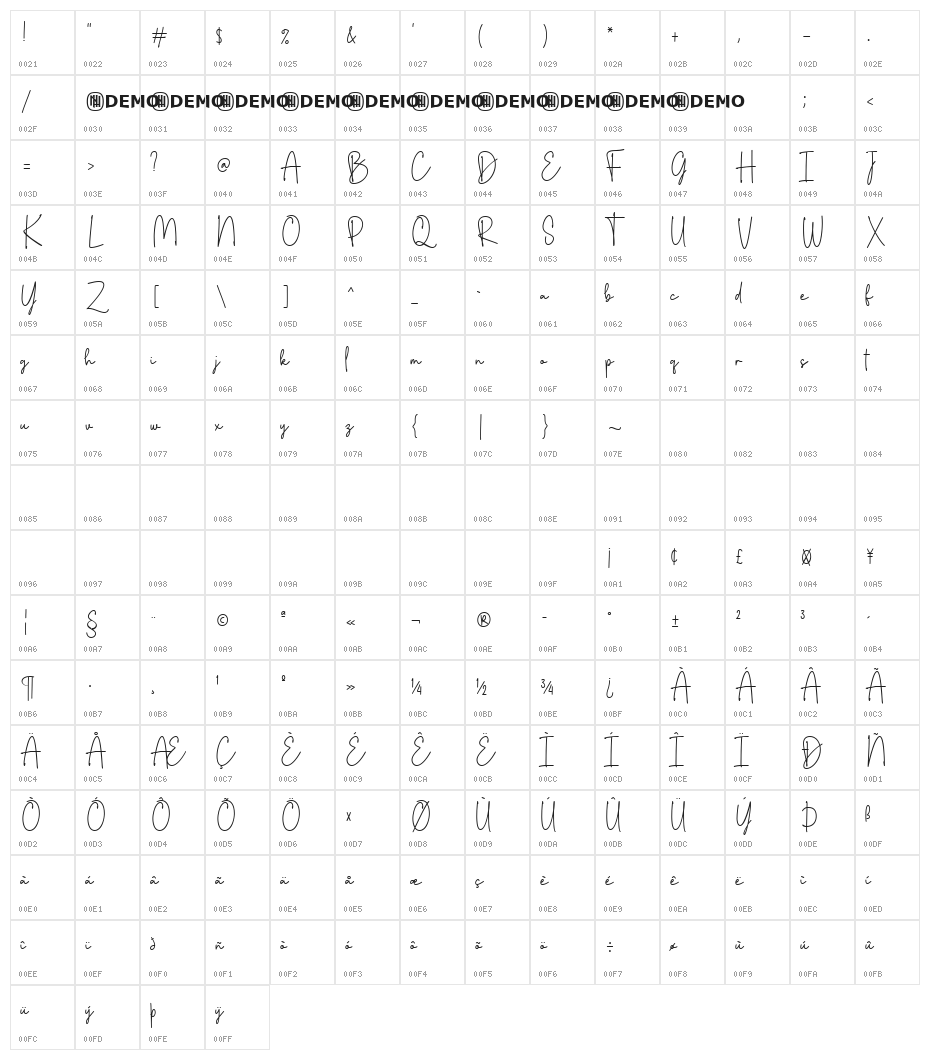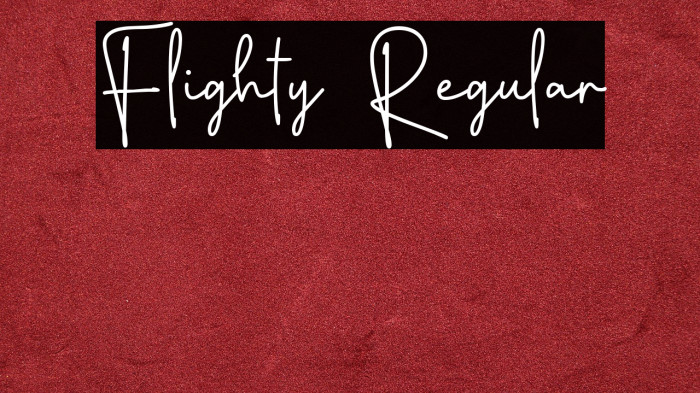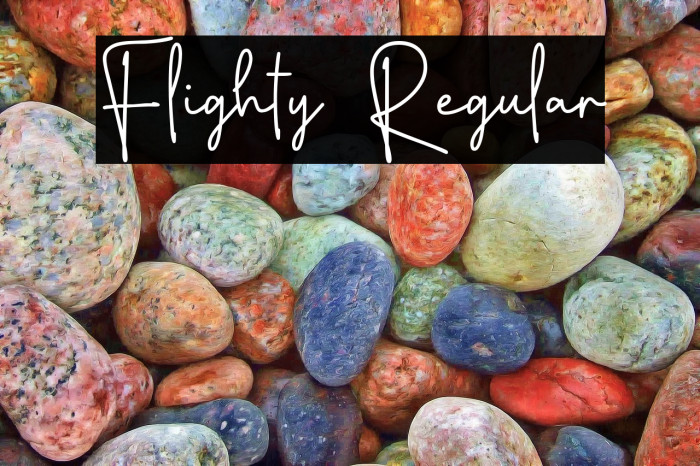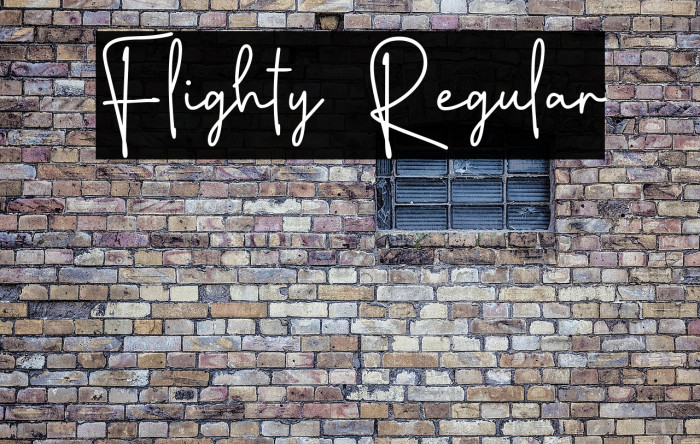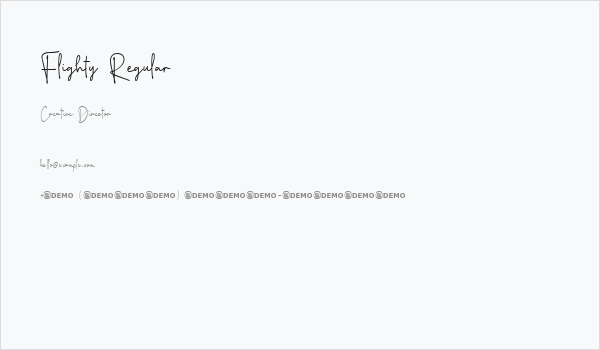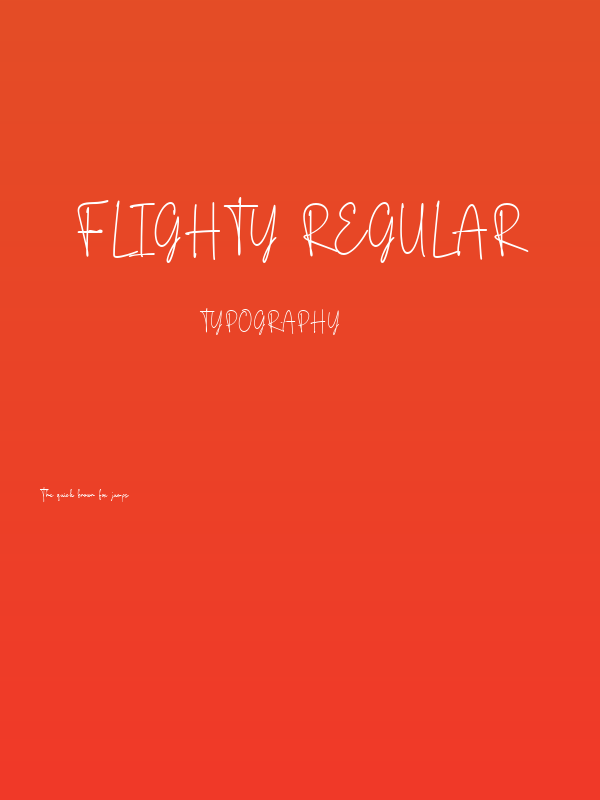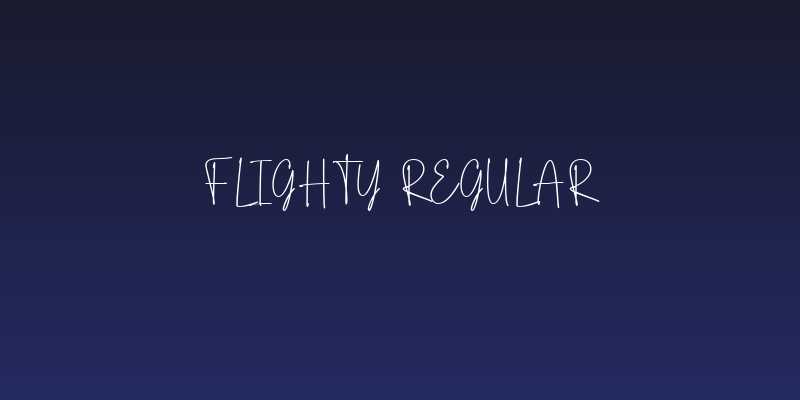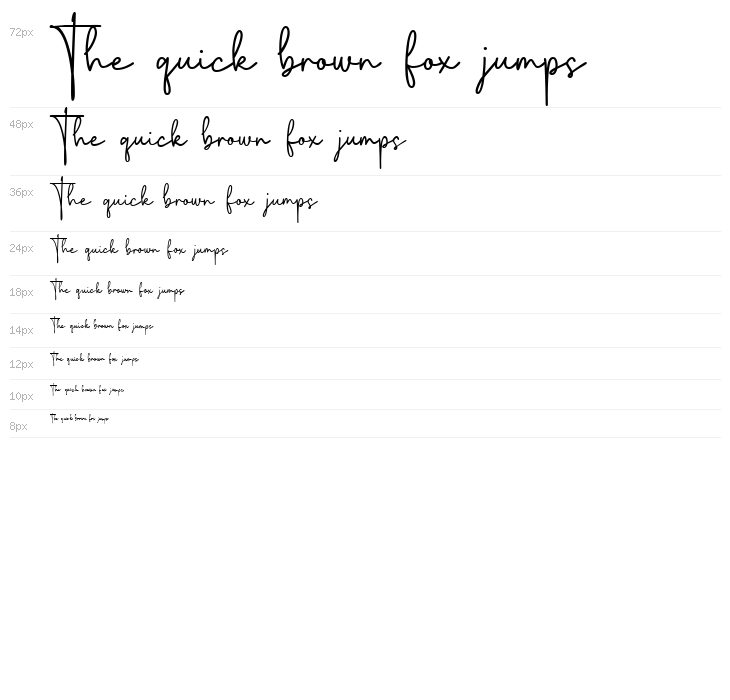
Flighty Regular Font
Flighty Regular Description
This font features a playful and casual handwritten style, characterized by its flowing and slightly irregular strokes. The uppercase letters are tall and slender, with a whimsical flair that adds a touch of personality. The lowercase letters maintain a consistent style, with smooth curves and a relaxed appearance. The numbers and special characters complement the overall design, maintaining the same playful and informal aesthetic. This font is perfect for projects that require a personal and approachable touch.
| Overall Style | Casual |
| Use Case | Logos, Headlines, Informal text |
| Proposed Projects | Ideal for greeting cards, personal branding, social media graphics, and informal invitations. |